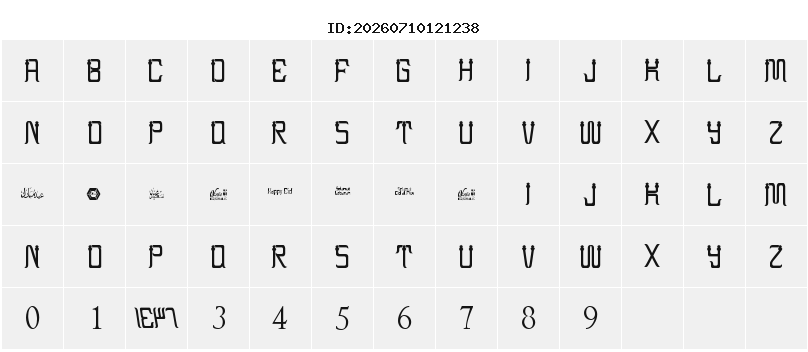
EID AL-FITR 2 Preview
• Font Name: EID AL-FITR 2
• Font ID: EID AL-FITR 2:Version 1.003
• Full Font Name: EID AL-FITR 2
• Version: Version 1.003 January 26, 2015
• PostScript Name: EIDAL-FITR2
• Character Count: 243
• Designer: Vidka Foundry
• Description: EID AL-FITR 2 DOME by Vidkä© Foundry
About EID AL-FITR 2.otf
EID AL-FITR 2.otf is a modern, elegant sans-serif font designed for ultimate readability and visual harmony. Perfect for branding, headlines, web design, and print materials.